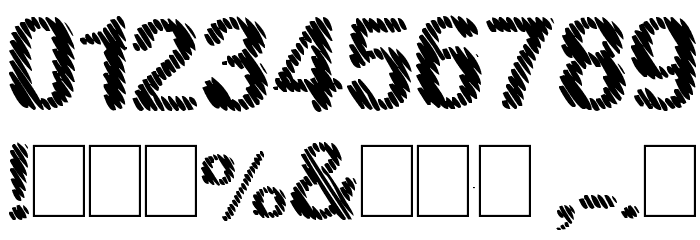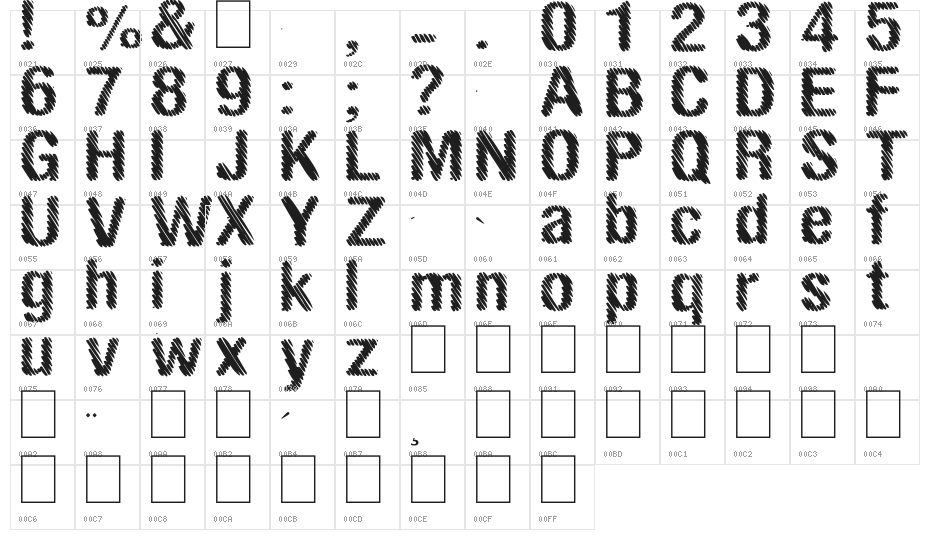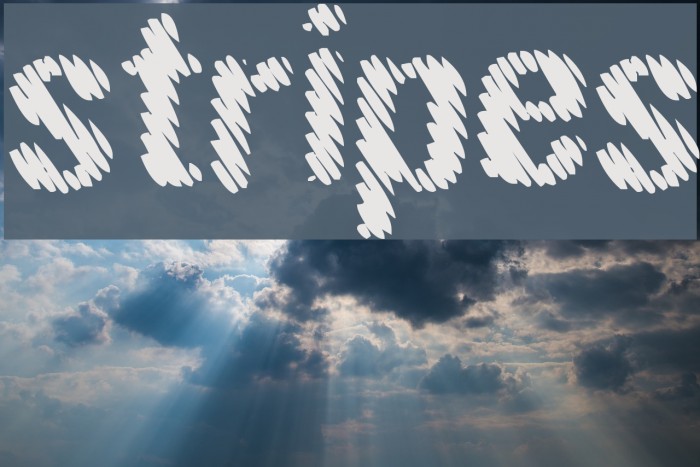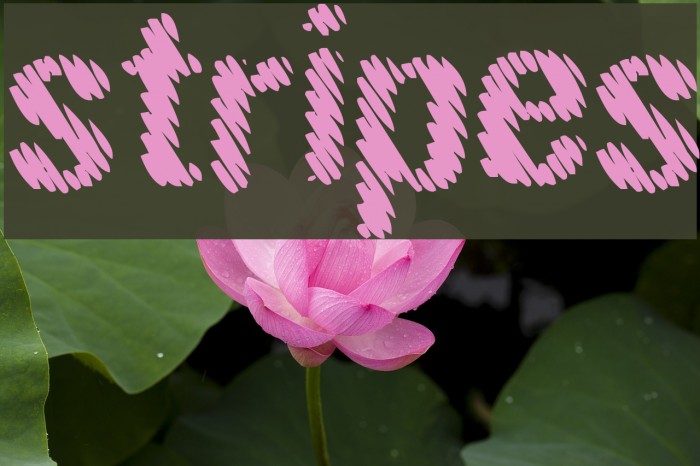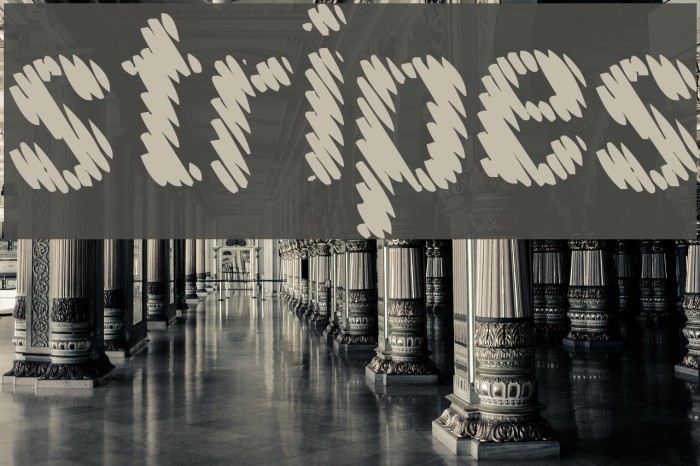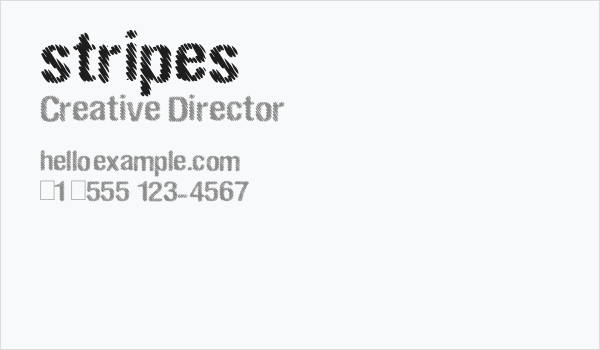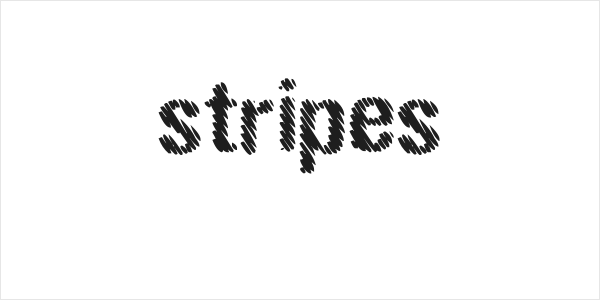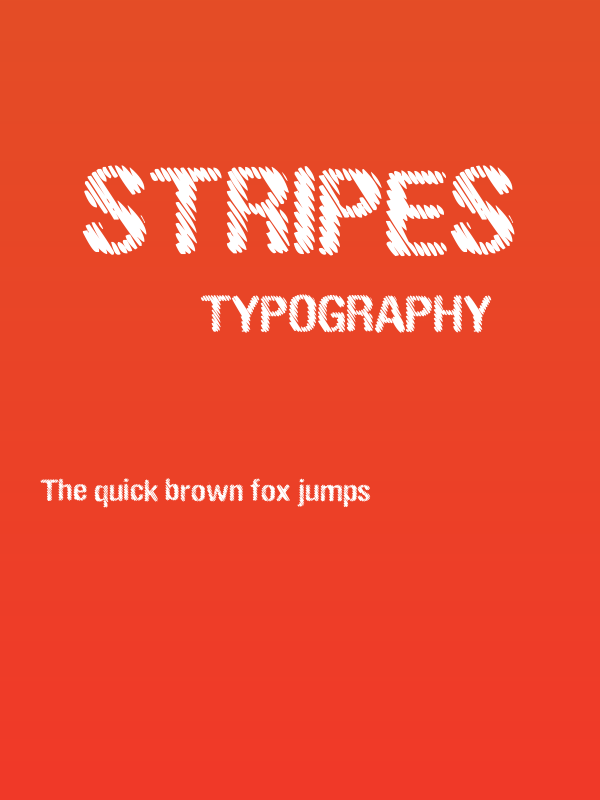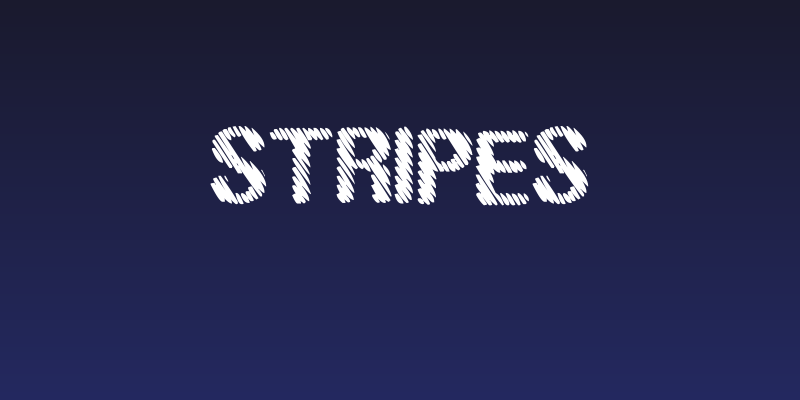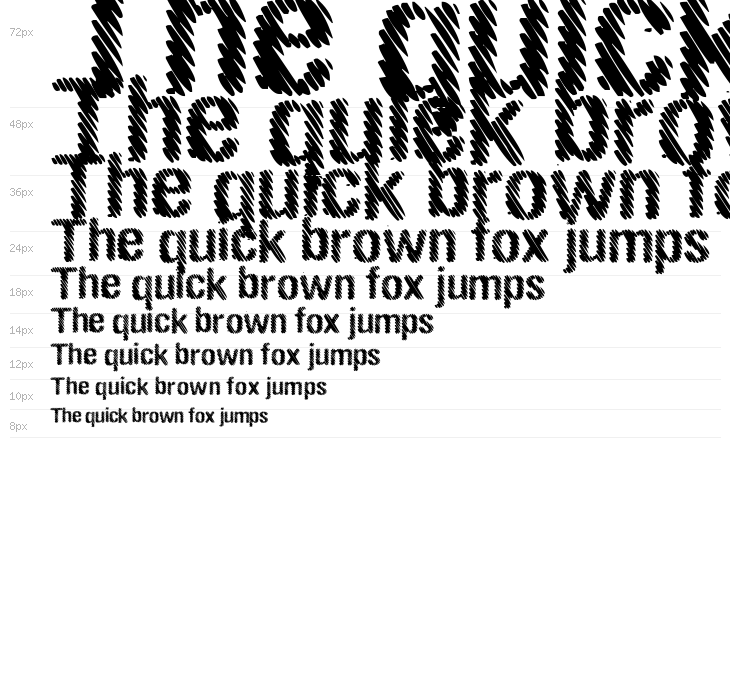
stripes Font
stripes Description
This font features a bold, decorative style with a unique striped pattern running diagonally across each character. The uppercase and lowercase letters maintain a consistent width, giving the font a cohesive look. The numbers and special characters follow the same design, ensuring uniformity. The font's distinct appearance makes it stand out, with its high contrast and thick strokes. The diagonal stripes add a dynamic and energetic feel, making it suitable for eye-catching designs.